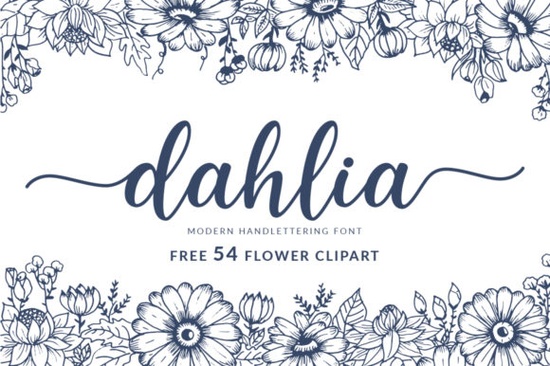
Looking for a font that adds a touch of warmth and charm to your designs? The Dahlia Font is a great choice if you're working on projects that require a soft, hand-lettered feel. Its playful rounded characters make it ideal for creating eye-catching art, whether you're designing for print, digital use, or personal projects.
The Dahlia Font fits well in the {category} category, offering a unique blend of elegance and casual style. It’s perfect for designers who want to add a handwritten look without the hassle of actually writing by hand. From greeting cards to social media posts, this font can bring a personal touch to your work.
When choosing a font, consider how it will fit with your overall design. The Dahlia Font works well with other soft, flowing typefaces, making it a versatile addition to your collection. It’s also great for pairing with bold or modern fonts to create contrast and visual interest.
One of the key advantages of the Dahlia Font is its readability. Even though it has a handwritten appearance, it remains clear and easy to read, which is essential for any design project. Whether you're creating a logo, a poster, or a social media graphic, this font can help you convey a friendly and approachable message.
Designers often look for fonts that can add personality to their work. The Dahlia Font does exactly that. Its soft curves and gentle lines give it a warm and inviting feel, making it a popular choice for brands that want to communicate a sense of care and creativity.
For crafters and small business owners, this font can be a valuable tool. It’s especially useful for creating custom labels, packaging, and promotional materials. Its hand-lettered style can help your products stand out and attract attention in a competitive market.
If you’re new to using handwritten fonts, you might want to experiment with different sizes and layouts to see what works best for your project. The Dahlia Font is flexible enough to adapt to various design needs, from large headlines to smaller text elements.
When using the Dahlia Font, keep in mind the context of your design. For example, it may not be the best choice for formal documents, but it can shine in more casual or artistic settings. Always test the font in different formats to ensure it looks good across all platforms.
Here are a few tips to get the most out of the Dahlia Font:
- Use it for branding: Add a personal touch to your logo or business name.
- Pair it with other fonts: Combine it with a clean, modern font for balance.
- Experiment with colors: Try different color schemes to highlight its softness.
- Test it in different sizes: Ensure it remains readable at various scales.
Whether you're a designer, crafter, or small business owner, the Dahlia Font can help you create beautiful and expressive designs. Its unique style and versatility make it a valuable addition to any creative toolkit.